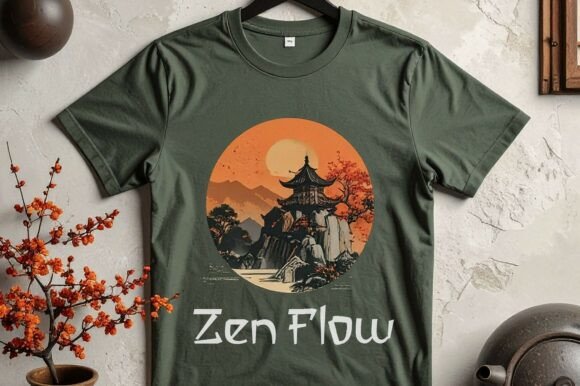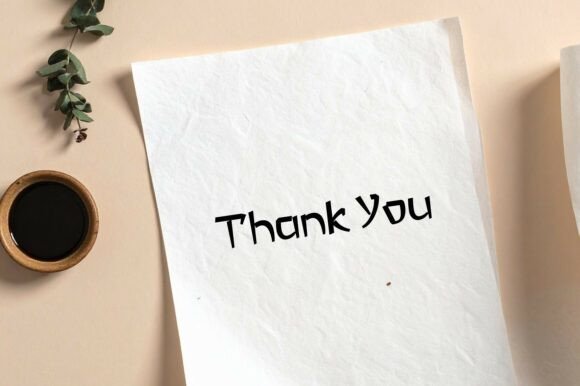
Unlocking the Essence of Asian Culture with a Timeless Font
As a designer, have you ever been captivated by the intricate beauty of traditional East Asian calligraphy and woodblock printing? The delicate dance of strokes, the subtle variations in line thickness, and the rhythmic structure of characters all come together to create a unique visual language that transports us to a world of serenity and elegance. For designers seeking to evoke this aesthetic in their work, the Asian Hiro Font offers a modern, clean interpretation that skillfully balances tradition with legibility.
With its strong, angular strokes and authentic hand-drawn feel, the Asian Hiro Font is an invaluable tool for designers looking to add cultural resonance to their designs. Whether you’re creating a logo, title, or headline, this expressive font is sure to make a lasting impression. Its bold presence ensures excellent visibility, making it perfect for a wide range of design applications.
- Unique Characteristics: Asian Hiro Font features a distinctive blend of traditional and modern elements, with a unique stroke width and letterform design that enhances readability and visual appeal.
Asian Hiro Font Review
At first glance, Asian Hiro Font may seem like a unique addition to your typography arsenal, but does it live up to its promise? Let’s dive in and find out.
- Asian-inspired aesthetics: This font does a great job of capturing the essence of Asian calligraphy and typography, making it perfect for projects that require a touch of cultural flair.
- Legibility: Despite its ornate design, the font is surprisingly legible, even at smaller font sizes.
- Customization options: The font comes with a range of customization options, including weight, style, and color, giving you plenty of flexibility to suit your design needs.
- Limited font sizes: While the font is legible at smaller sizes, it can start to look a bit messy at very large font sizes.
- Lack of standardization: The font’s design can be a bit inconsistent across different platforms and devices, which may require some additional tweaking.
- Not ideal for body text: Due to its ornate design, Asian Hiro Font is better suited for headings and titles rather than body text.
Overall, Asian Hiro Font is a solid choice for designers looking to add a touch of Asian flair to their projects. While it may have some limitations, its unique design and customization options make it a great addition to any typography toolkit.
Tips for Getting the Most Out of Asian Hiro Font
Here are some tips to get the most out of Asian Hiro Font:
- Use Asian Hiro Font for titles and headings to add a touch of elegance and sophistication.
- Combine Asian Hiro Font with other fonts to create a unique and visually appealing design.
- Experiment with different font sizes and colors to create a cohesive and balanced design.
Asian Hiro Font is commonly used for:
- Asian-inspired designs and branding.